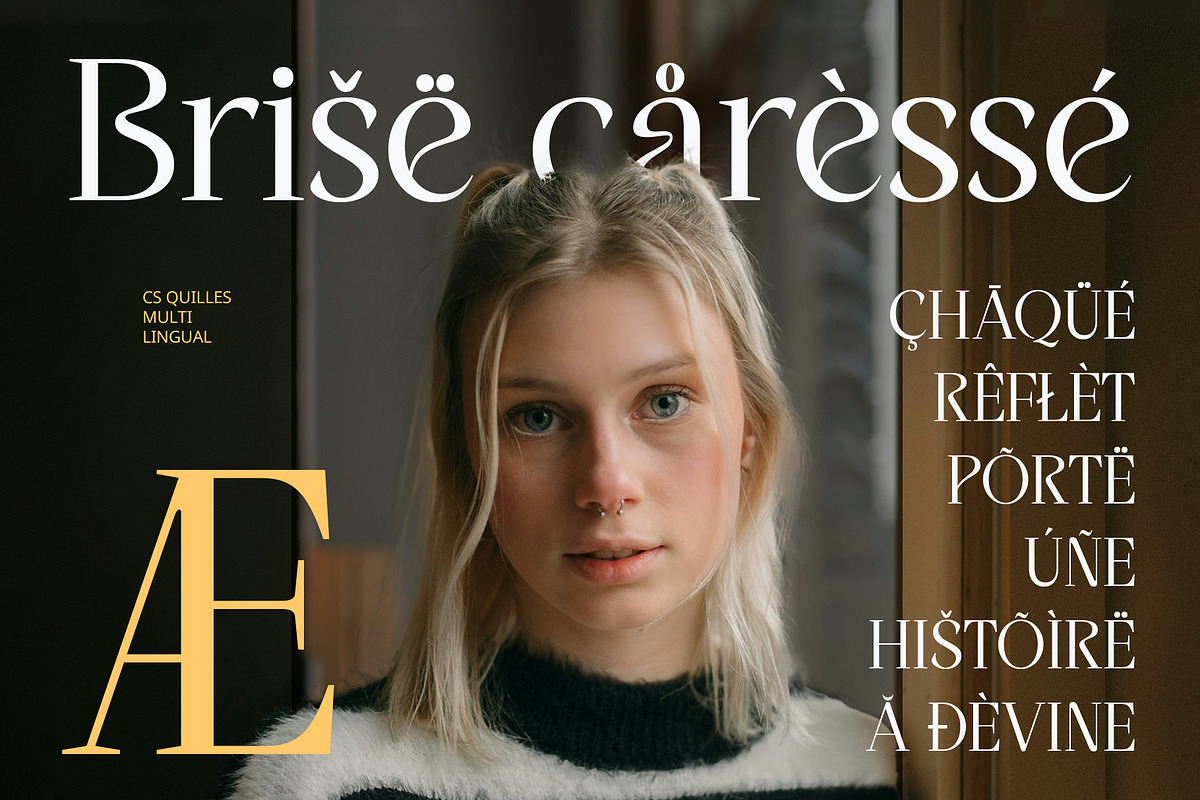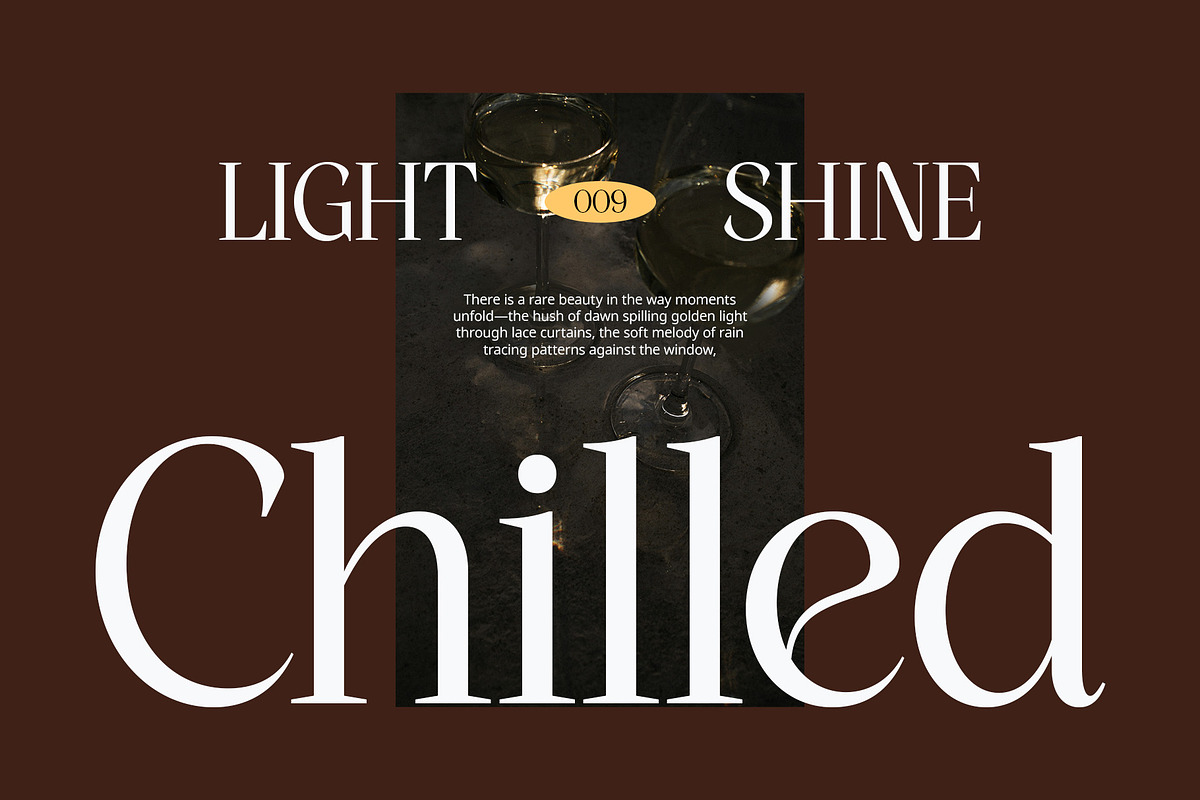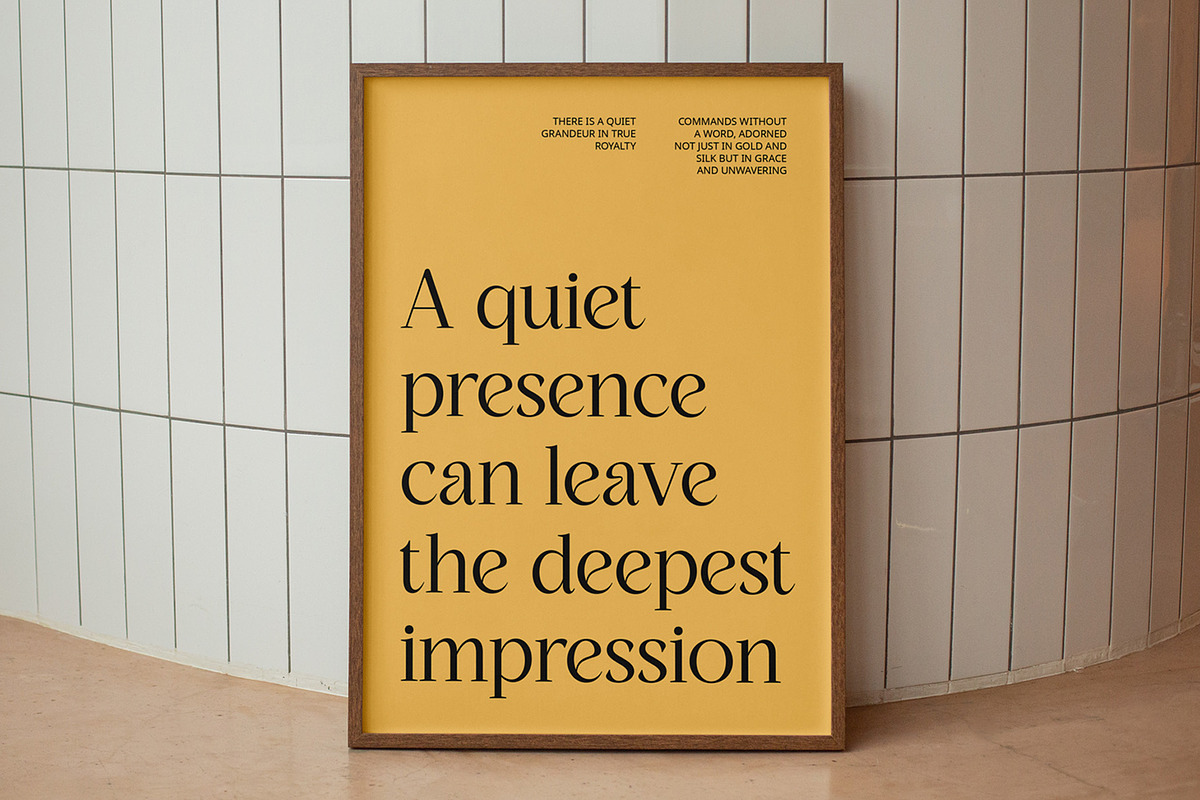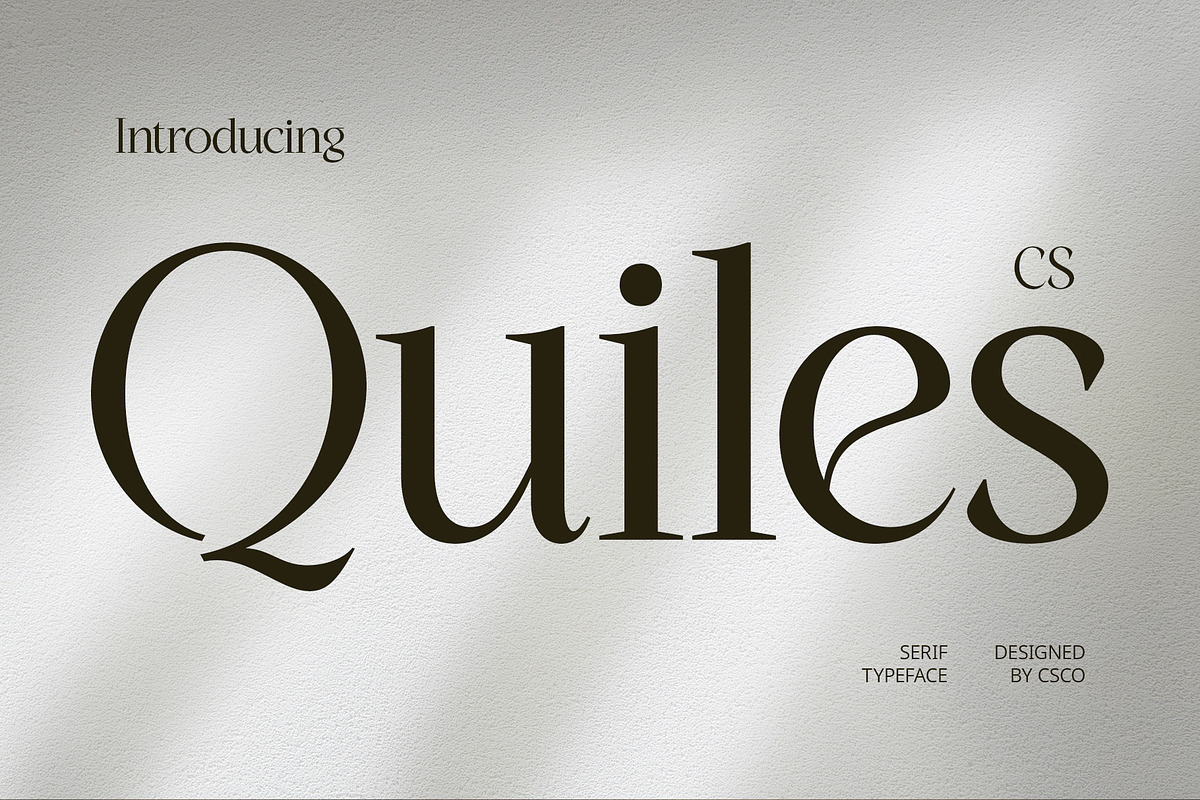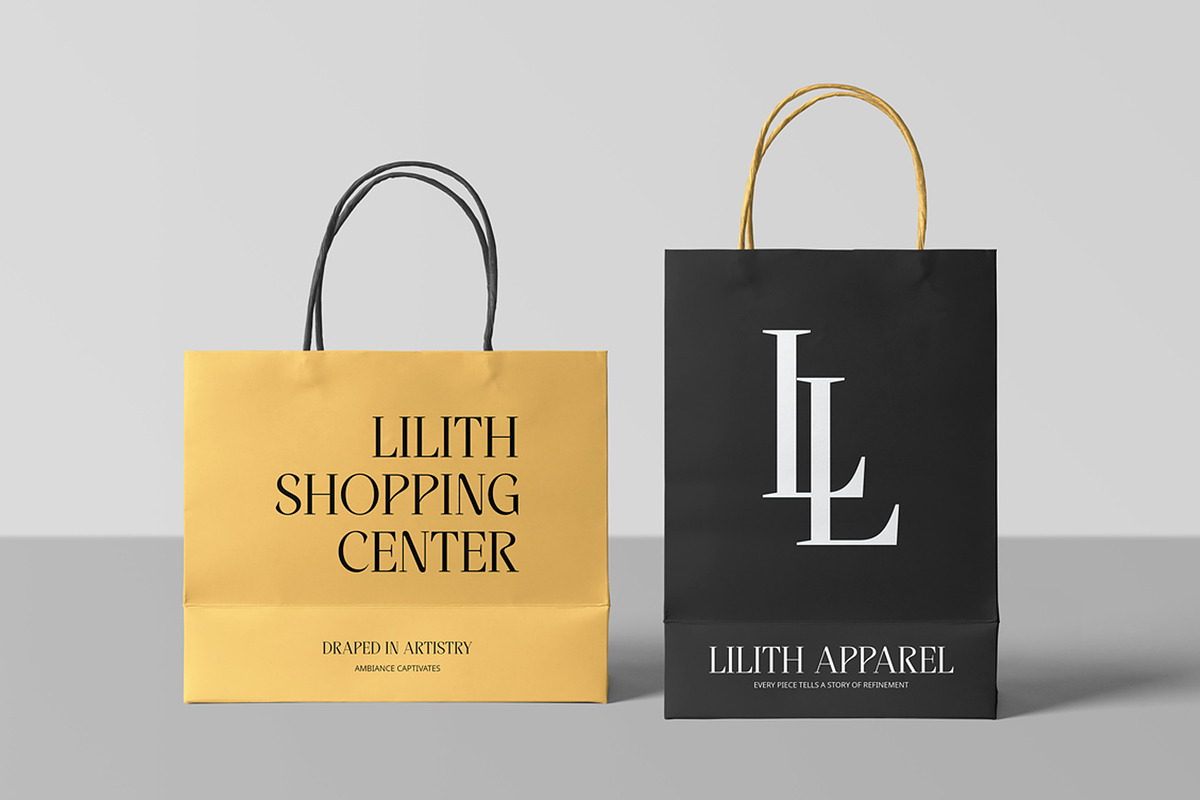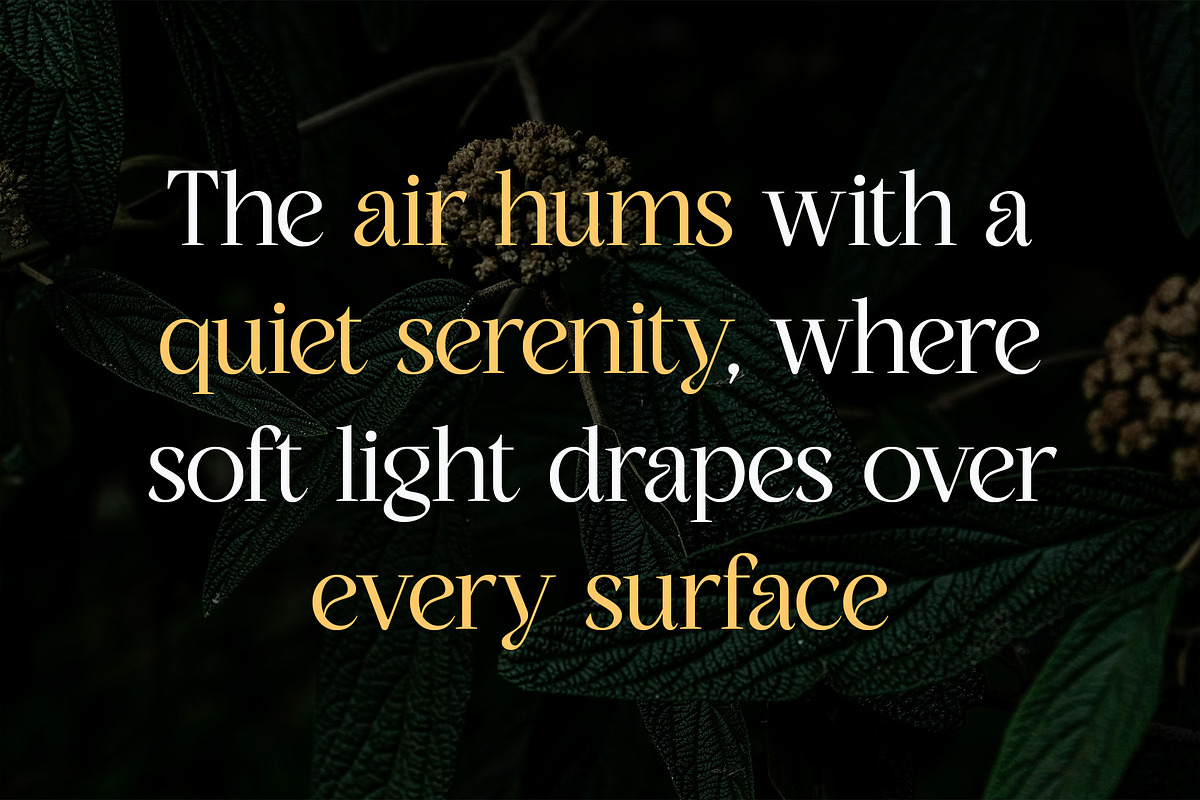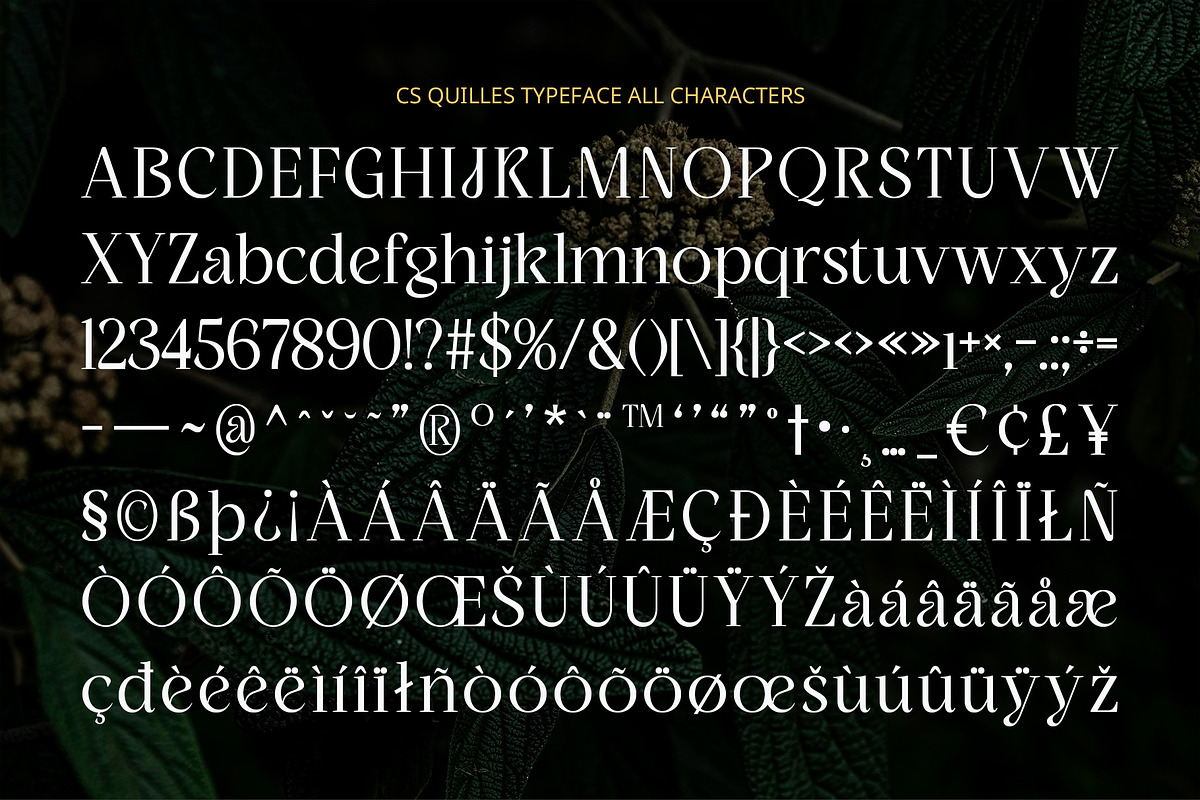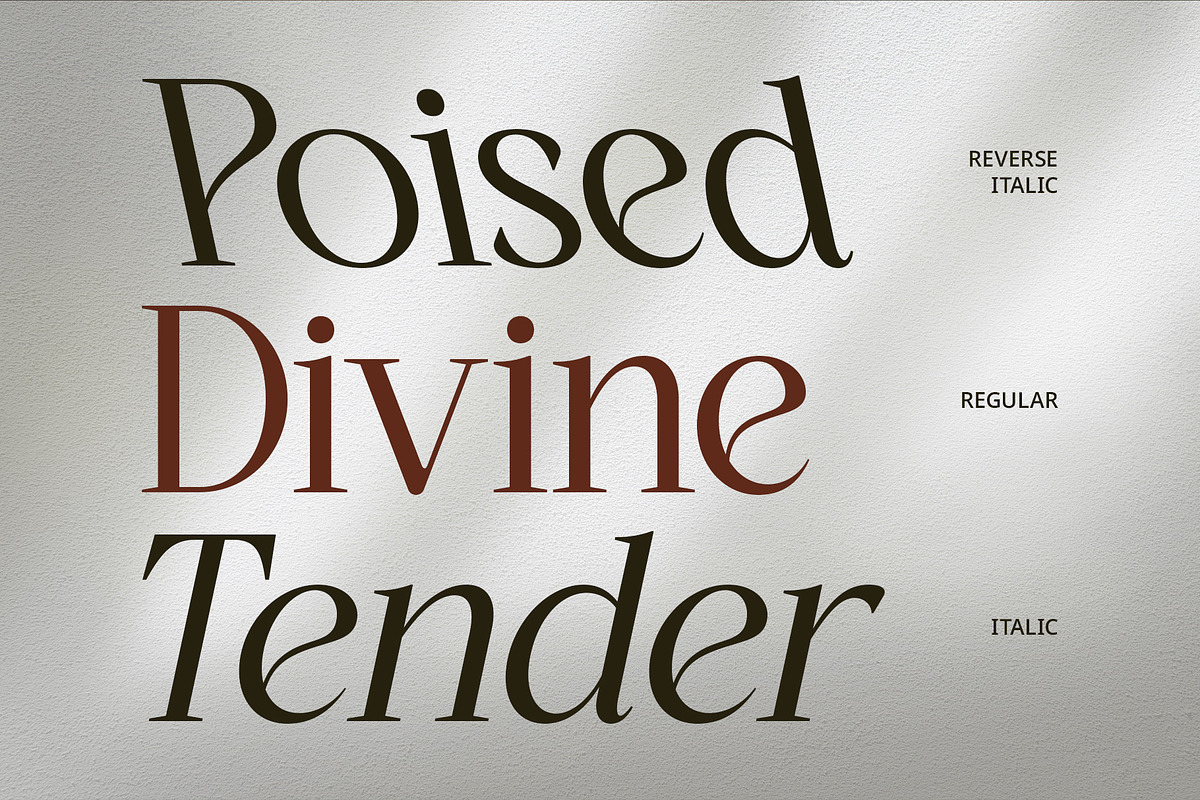
CS Quiles – Elegant Font
CS Quiles – Elegant Font: Timeless Sophistication in Every Letter
Modern Serif with Long Serifs CS Quiles is a modern serif font distinguished by its elongated serifs, refined letterforms, and balanced proportions. This combination creates a sleek and graceful aesthetic that embodies both minimalism and elegance, making it a standout choice for high-end designs.
Delicate Yet Bold Presence With its slim yet structured characters, CS Quiles strikes the perfect balance between delicacy and strength. The font’s clean lines and subtle contrast give it a sophisticated presence, making it ideal for editorial layouts, elegant branding, and refined packaging.
Perfect for Luxury and High-End Design Designed with luxury in mind, CS Quiles is an excellent choice for premium logos, fashion branding, and upscale marketing materials. Its classic yet contemporary feel adds an air of exclusivity to any project, ensuring a polished and professional look.
Versatile for Contemporary Aesthetics Beyond luxury applications, CS Quiles is also well-suited for modern design projects that demand a touch of sophistication. Whether for wedding invitations, stylish book covers, or elegant web design, this font elevates any visual composition with effortless charm and refinement.
- CS Quiles Regular
- CS Quiles Italic
- CS Quiles Reverse Italic